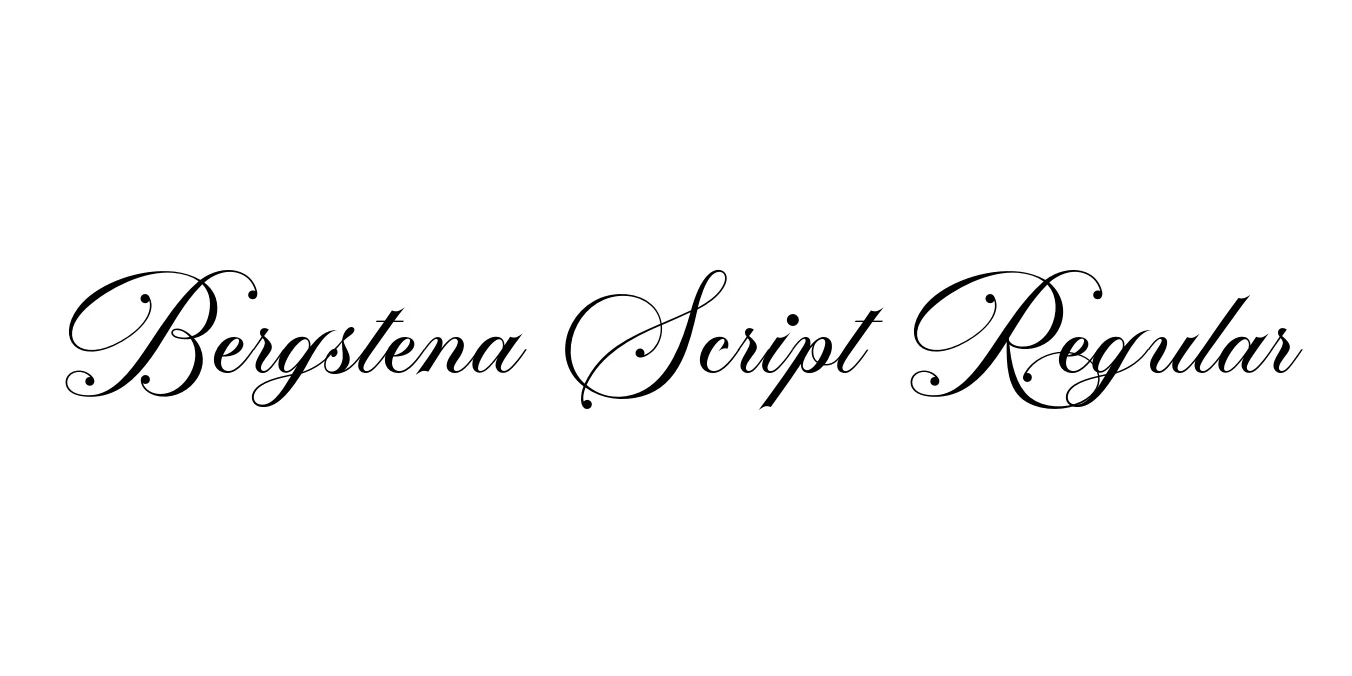
Bergstena Script Regular
Bergstena Script Regular is a sophisticated and elegant script typeface that draws deep inspiration from modern calligraphy. Developed by the renowned Alit Design studio, this font features fluid, sweeping strokes and a natural flow that mimics the beauty of hand-written ink on paper. Its delicate curves and intentional ligatures create a seamless visual rhythm, making it an excellent choice for designers aiming to convey a sense of luxury and refinement.
The typeface is rich with stylistic alternates and decorative flourishes, providing a high level of versatility for creative professionals. Beyond its aesthetic appeal, the font maintains a high degree of legibility, making it suitable for both digital interfaces and high-quality print production. It has become a staple for wedding stationery, high-end branding, and editorial layouts that require a personal, artistic touch.
Bergstena Script Regular Best Uses
Provides a romantic and high-end feel for ceremony stationery.
Perfect for boutique brands, beauty products, and fashion labels.
Ideal for creating aesthetic quotes and sophisticated Instagram graphics.
Adds a handcrafted, premium touch to product labels and boxes.